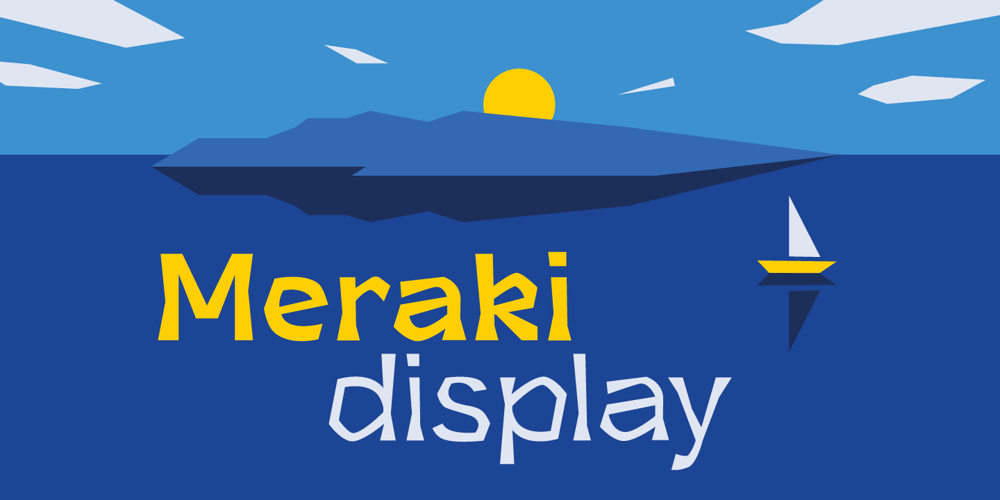
Meraki Display Font Family was designed by Agne Matulionyte and published by Ideabuk. Meraki Display contains 3 styles and family package options. Meraki Display is contemporary display font – expressive, daring and edgy. Perfect for a dose of fun for your project!